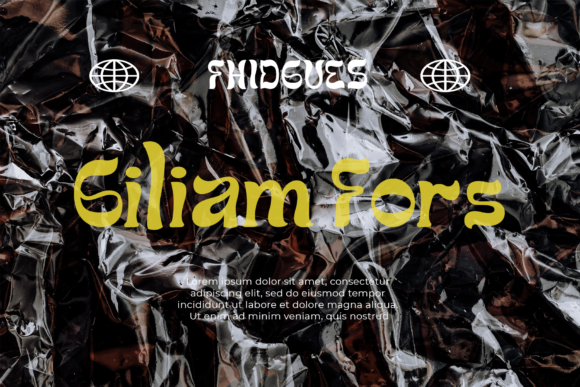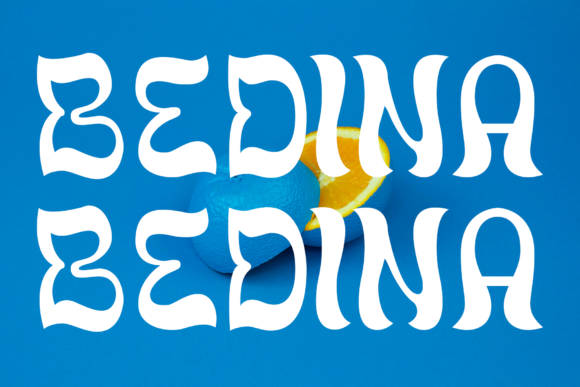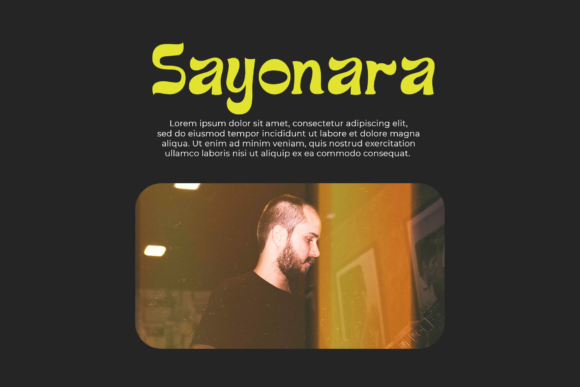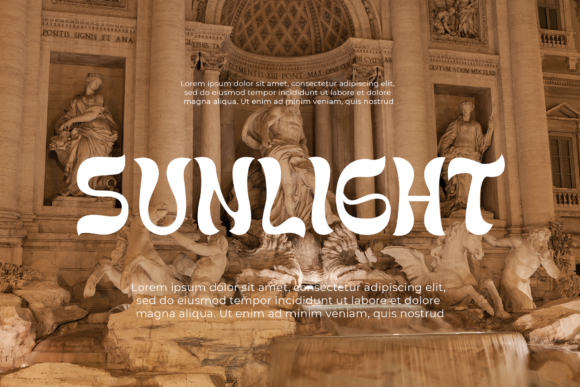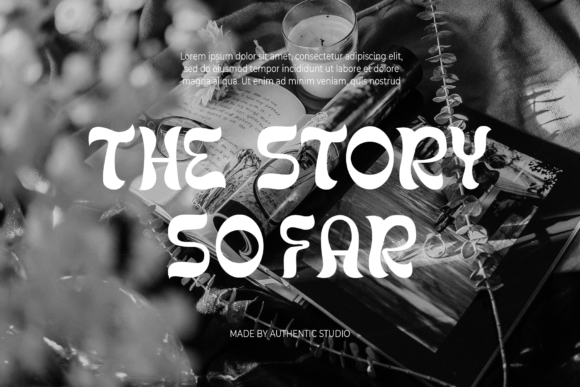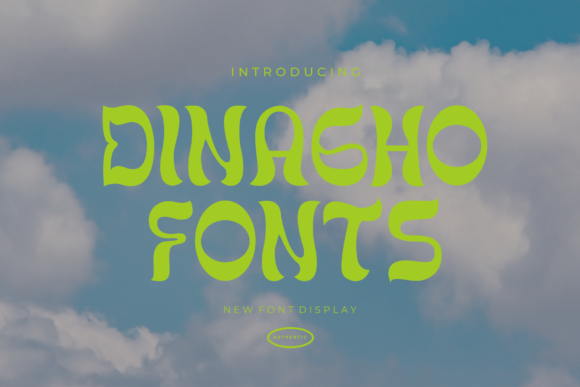
Introducing Dinagho Font: The Ultimate Bold Display Font for Designers and Crafters
Are you tired of using the same old fonts in your designs? Do you want to add a touch of uniqueness and personality to your creations? Look no further than Dinagho Font, a cool, trendy, and bold display font that’s sure to elevate your font library. In this article, we’ll dive into the features and benefits of Dinagho Font, and explore how it can enhance your designs and take your creativity to the next level.
What is Dinagho Font?
Dinagho Font is a bold display font that’s designed to make a statement. Its unique and modern design makes it perfect for a wide range of applications, from branding and advertising to packaging and digital media. With its bold and eye-catching style, Dinagho Font is sure to grab attention and leave a lasting impression on your audience.
Key Features of Dinagho Font
So, what makes Dinagho Font so special? Here are some of its key features:
- Bold and eye-catching design: Dinagho Font is designed to stand out from the crowd. Its bold and modern style makes it perfect for headlines, titles, and other display text.
- Trendy and cool aesthetic: Dinagho Font has a unique and trendy aesthetic that’s sure to appeal to designers and crafters who want to add a touch of personality to their designs.
- Versatile and flexible: Dinagho Font can be used for a wide range of applications, from digital media to print materials.
- Easy to read: Despite its bold design, Dinagho Font is easy to read and understand, making it perfect for use in body text and other applications where legibility is important.
Benefits of Using Dinagho Font
So, why should you choose Dinagho Font for your designs? Here are some of the benefits of using this amazing font:
- Adds personality to your designs: Dinagho Font has a unique and trendy aesthetic that’s sure to add personality and style to your designs.
- Enhances creativity: With Dinagho Font, you can create bold and eye-catching designs that showcase your creativity and style.
- Perfect for branding and advertising: Dinagho Font is perfect for use in branding and advertising, where its bold and eye-catching design can help grab attention and build recognition.
- Great for digital media: Dinagho Font is optimized for use in digital media, including websites, social media, and other online applications.
How to Use Dinagho Font
Using Dinagho Font is easy. Here are some tips to get you started:
- Use it as a headline font: Dinagho Font is perfect for use as a headline font, where its bold and eye-catching design can help grab attention.
- Pair it with other fonts: Dinagho Font can be paired with other fonts to create a unique and stylish design.
- Experiment with different colors: Dinagho Font looks great in a wide range of colors, so don’t be afraid to experiment and find the perfect color for your design.
| Font Name | Dinagho Font |
| Author | Authentic Studio |
In conclusion, Dinagho Font is a cool, trendy, and bold display font that’s perfect for designers and crafters who want to add a touch of personality and style to their designs. With its unique and modern design, Dinagho Font is sure to enhance any creation and take your creativity to the next level. Whether you’re working on a branding project, creating digital media, or just want to add some personality to your designs, Dinagho Font is the perfect choice.